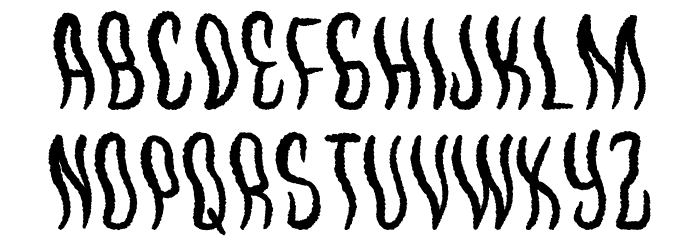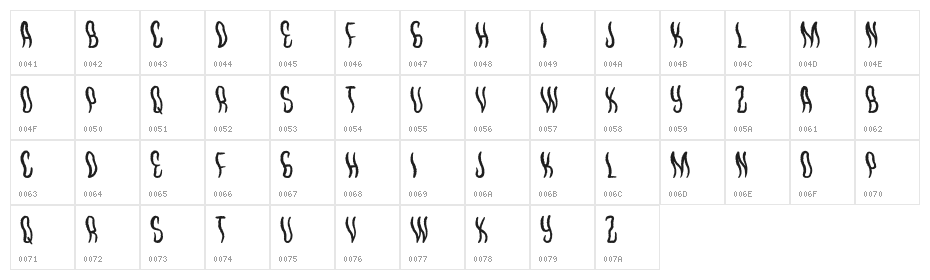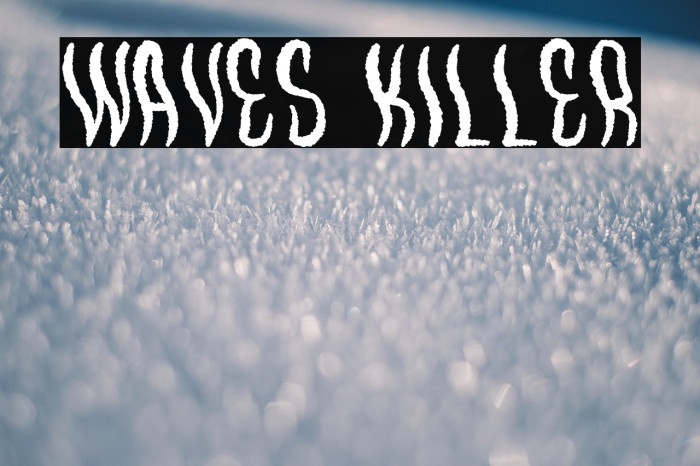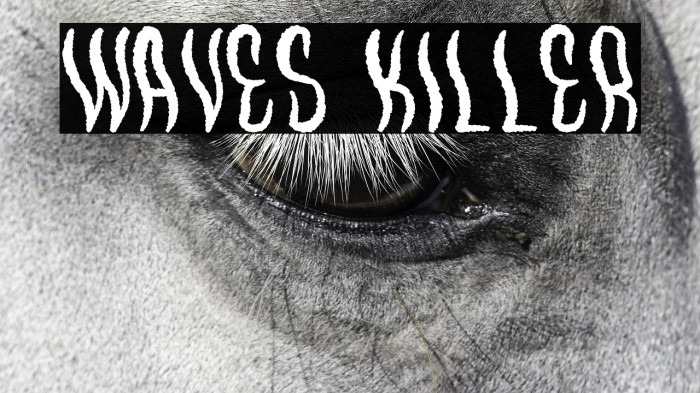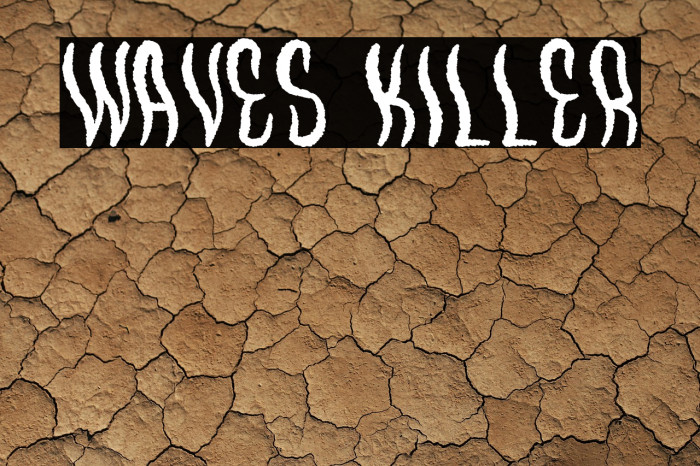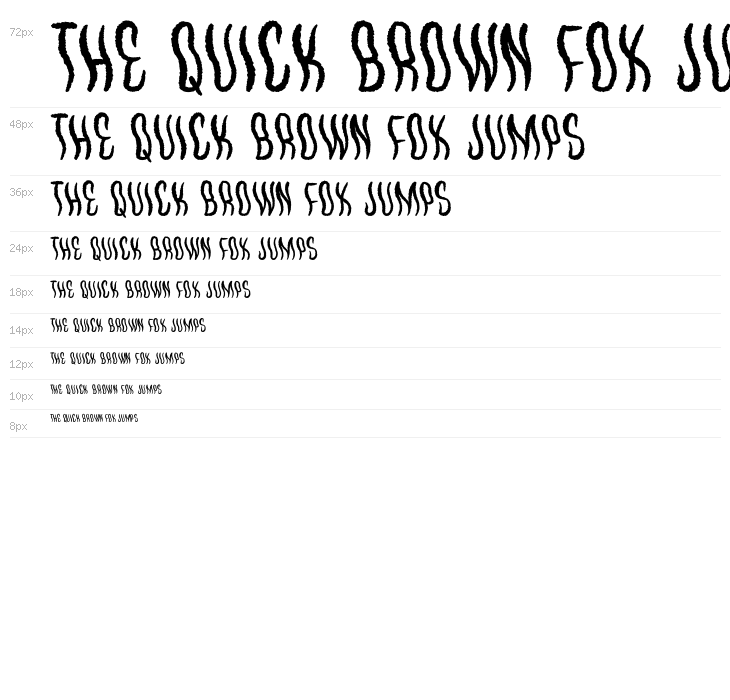
Waves Killer Font
Waves Killer Description
This font features a distinctive, wavy design that mimics the motion of ocean waves, giving it a dynamic and energetic appearance. The characters are elongated with a fluid, flowing style that adds a sense of movement and rhythm. The strokes are uneven, with varying thickness that creates a textured, almost hand-drawn look. This font is highly decorative, making it ideal for projects that require a bold and artistic touch. Its unique style is eye-catching and memorable, perfect for creating a strong visual impact.